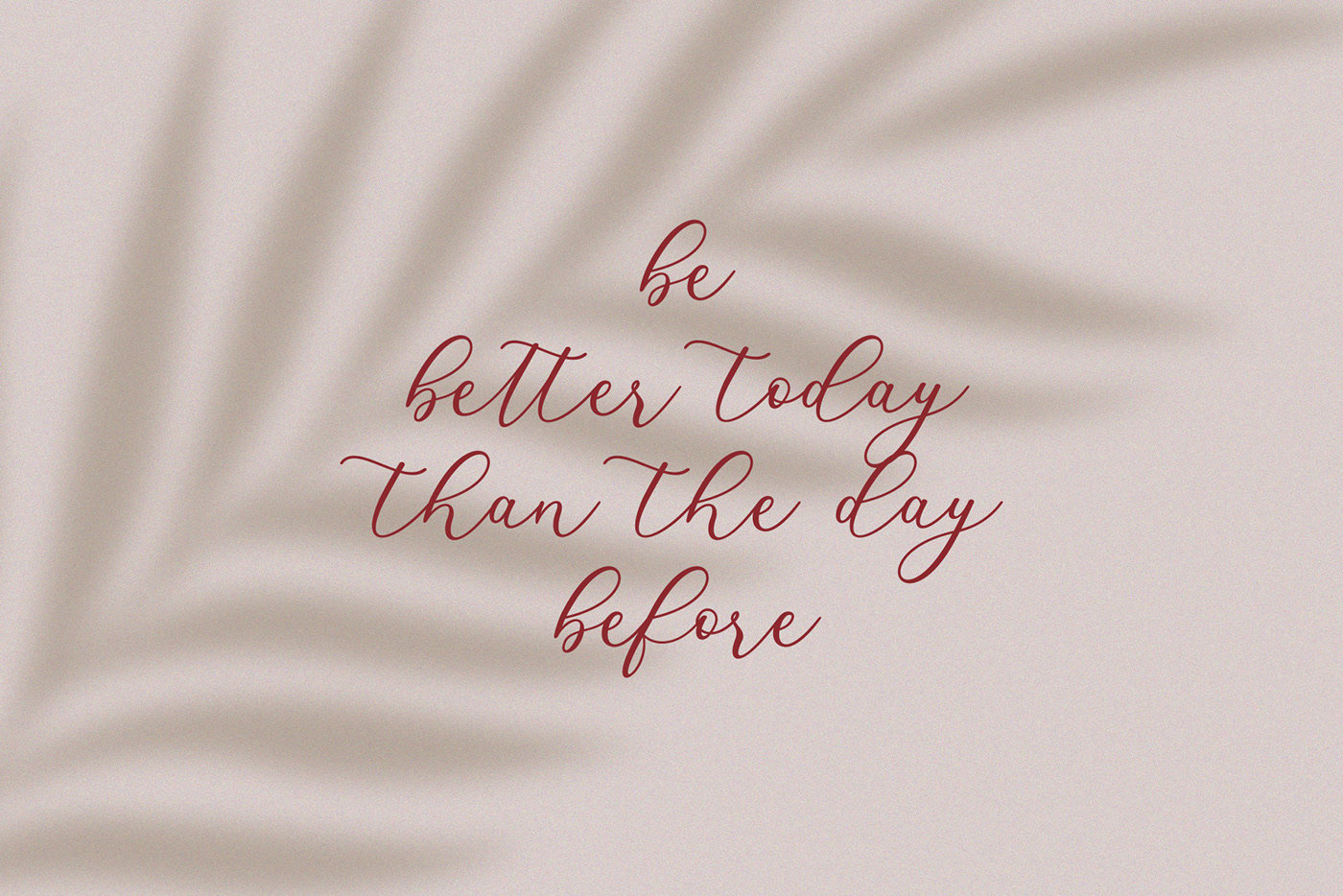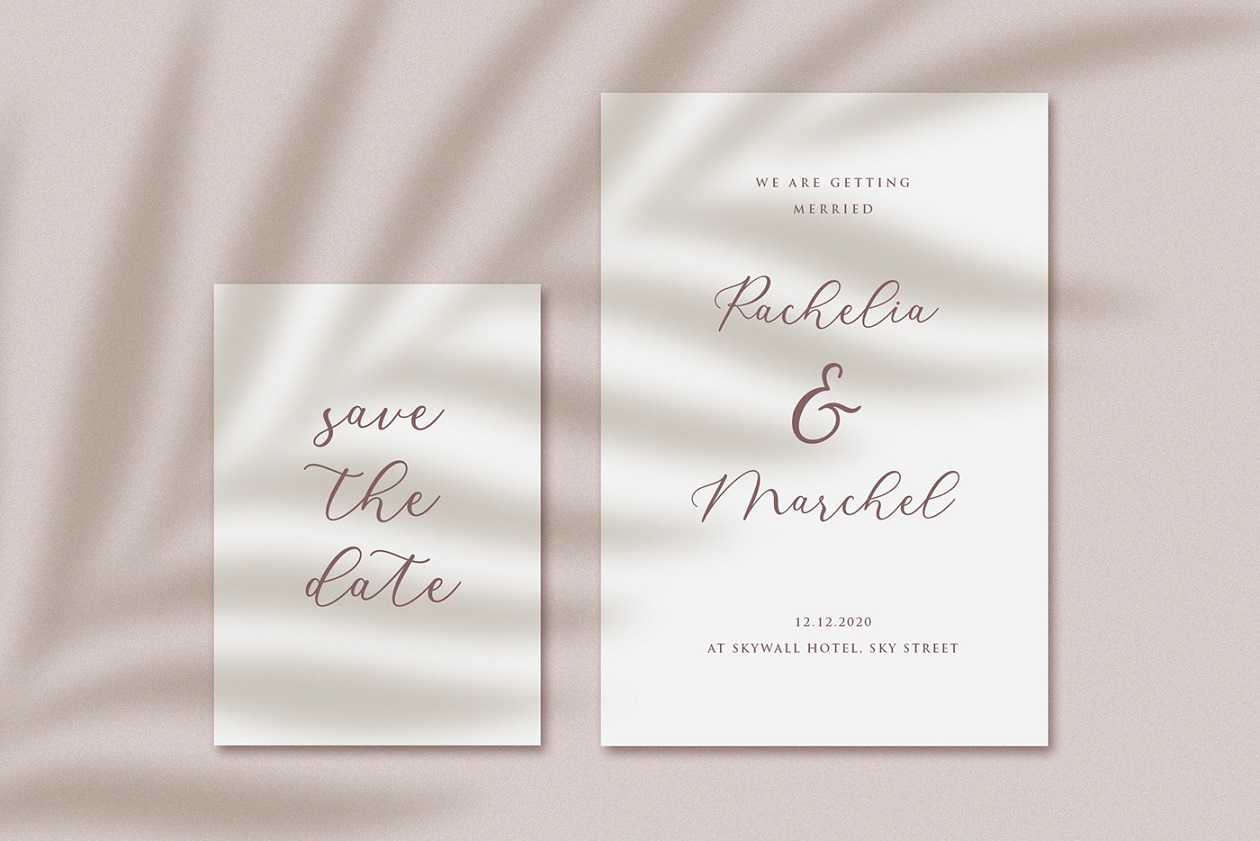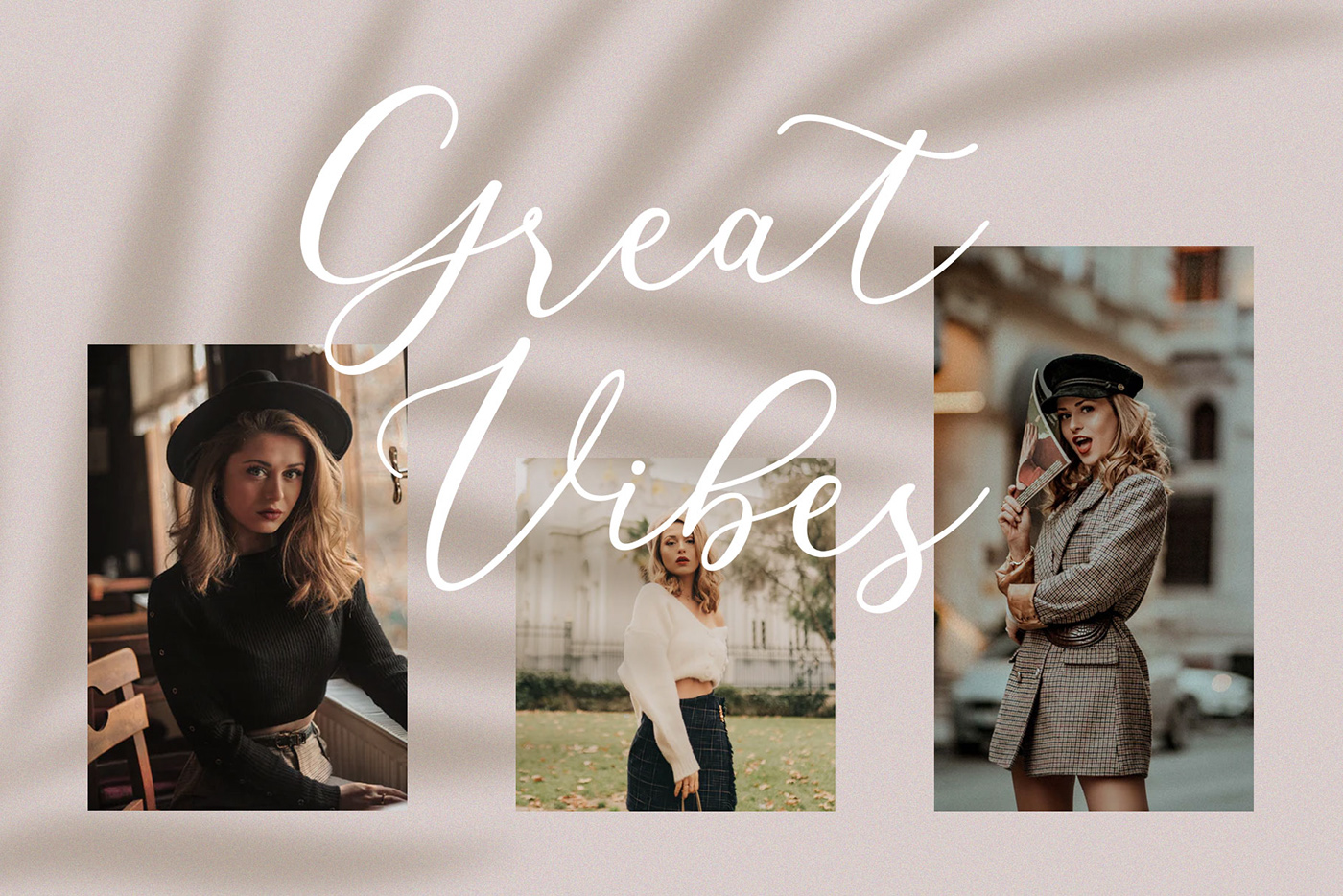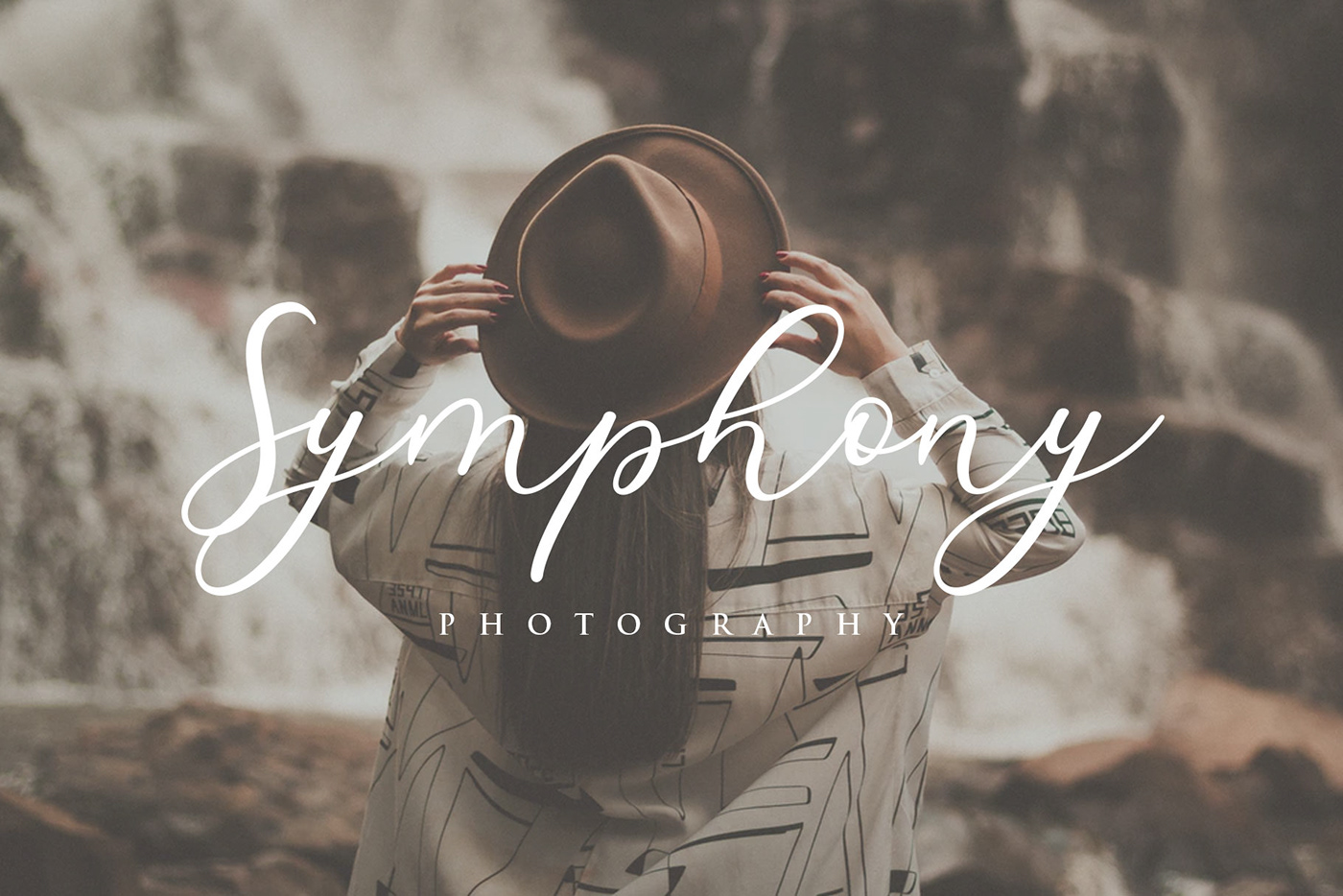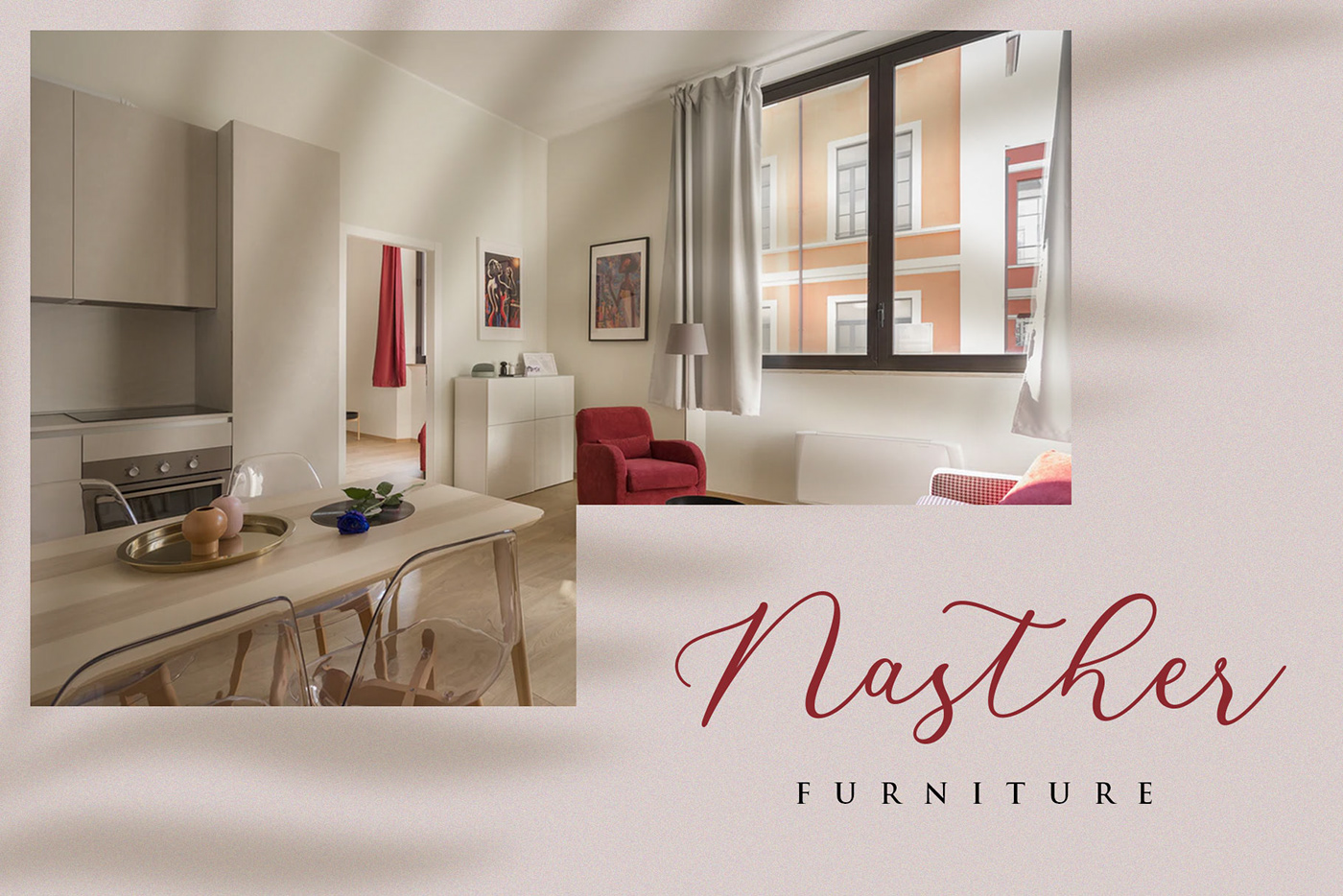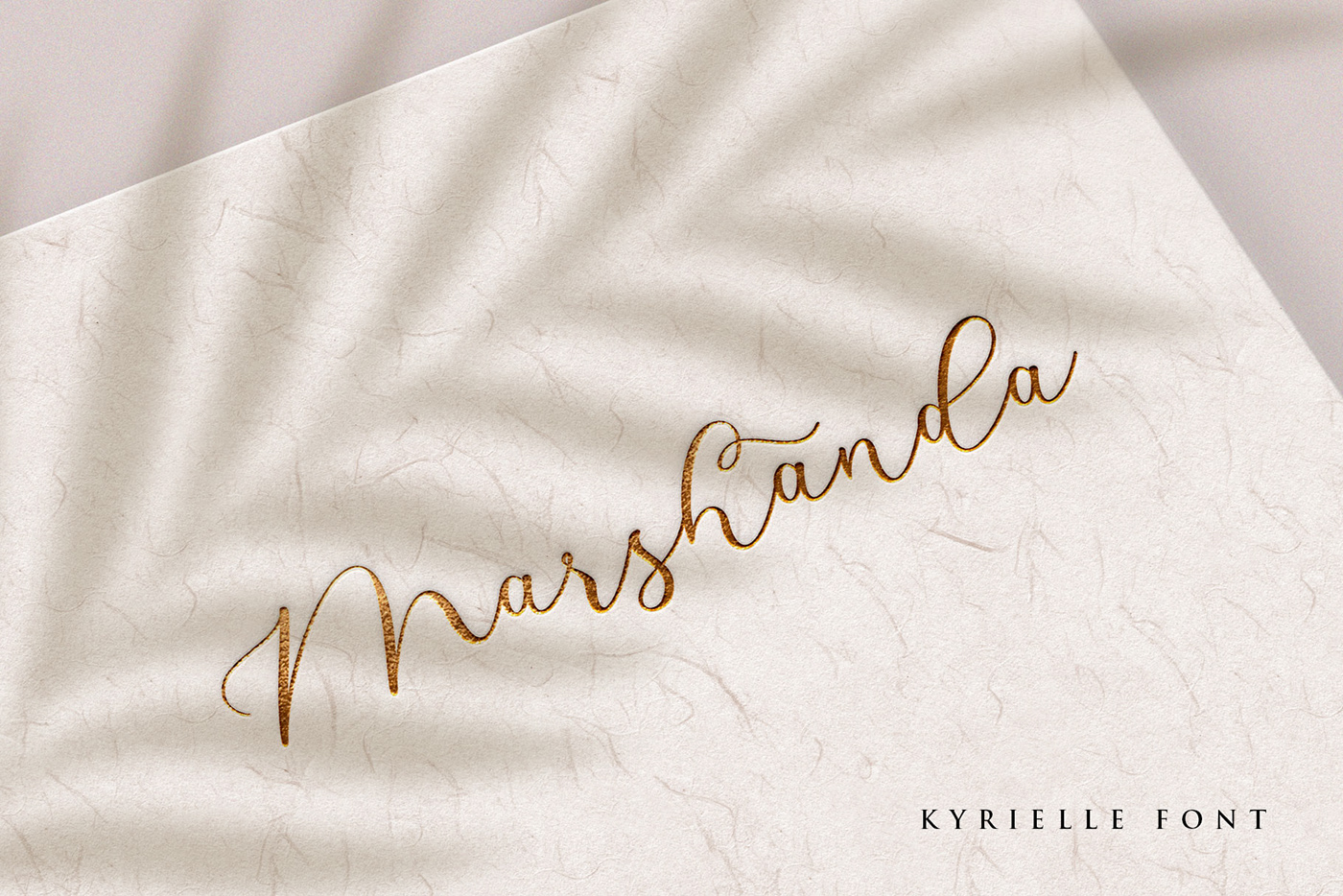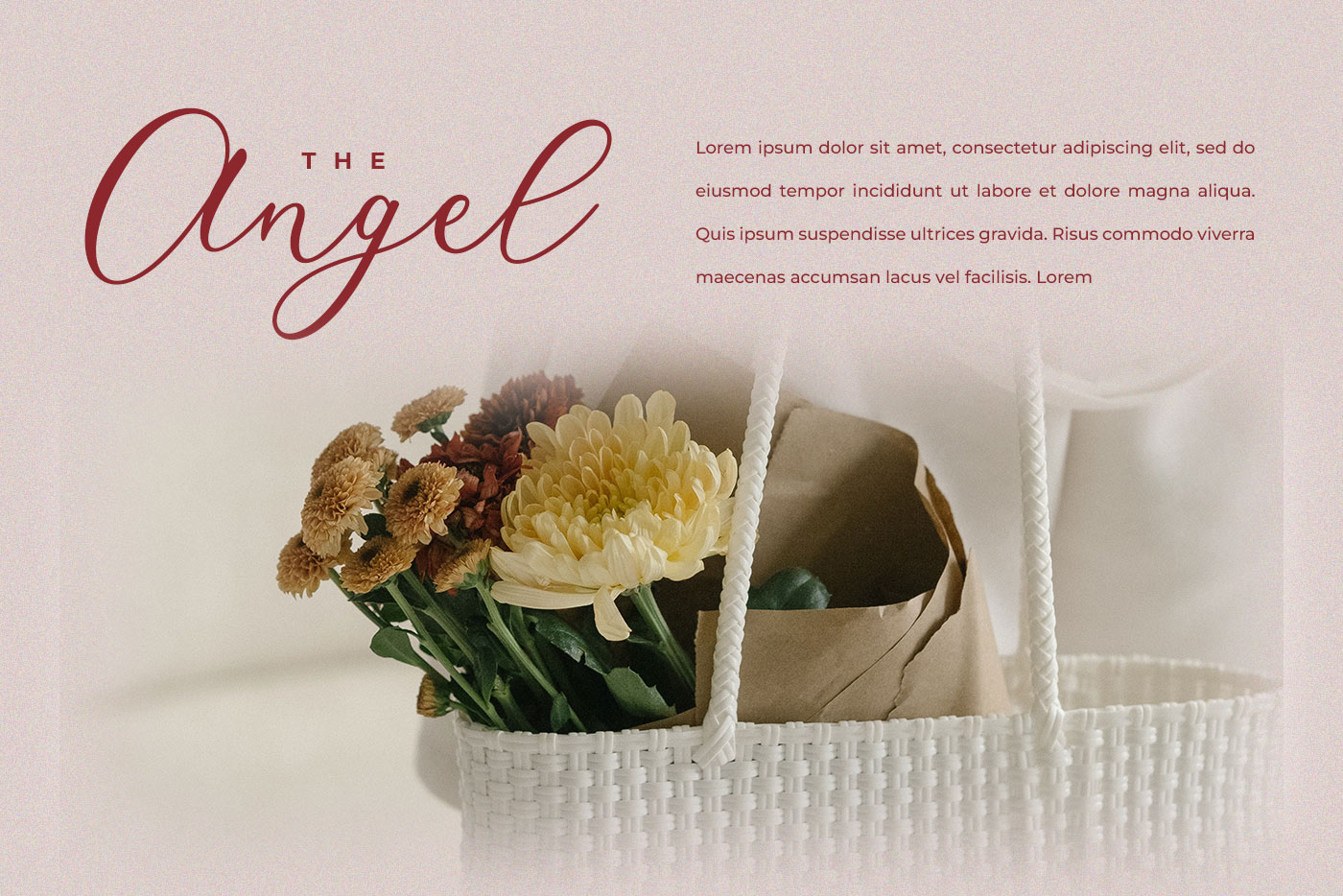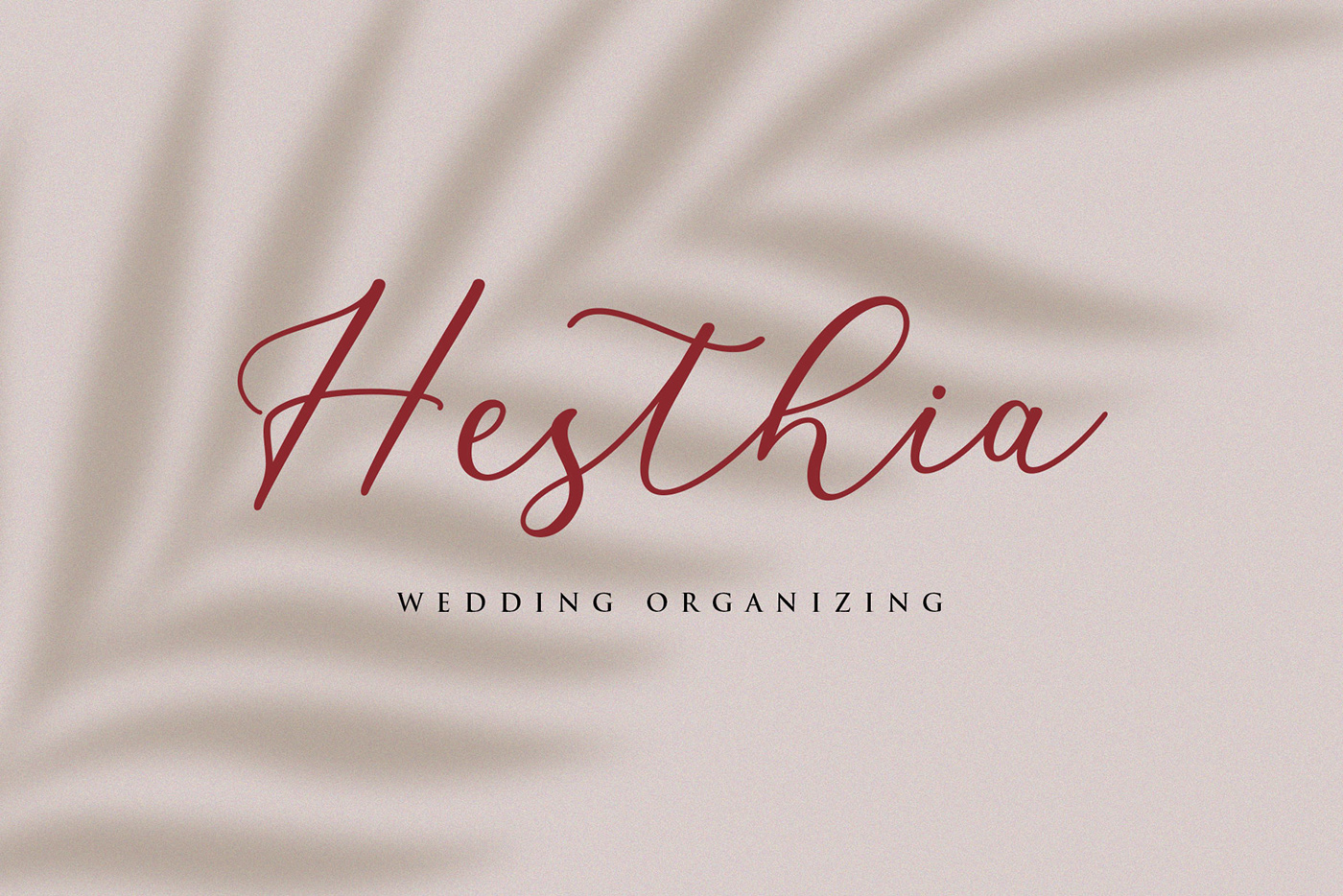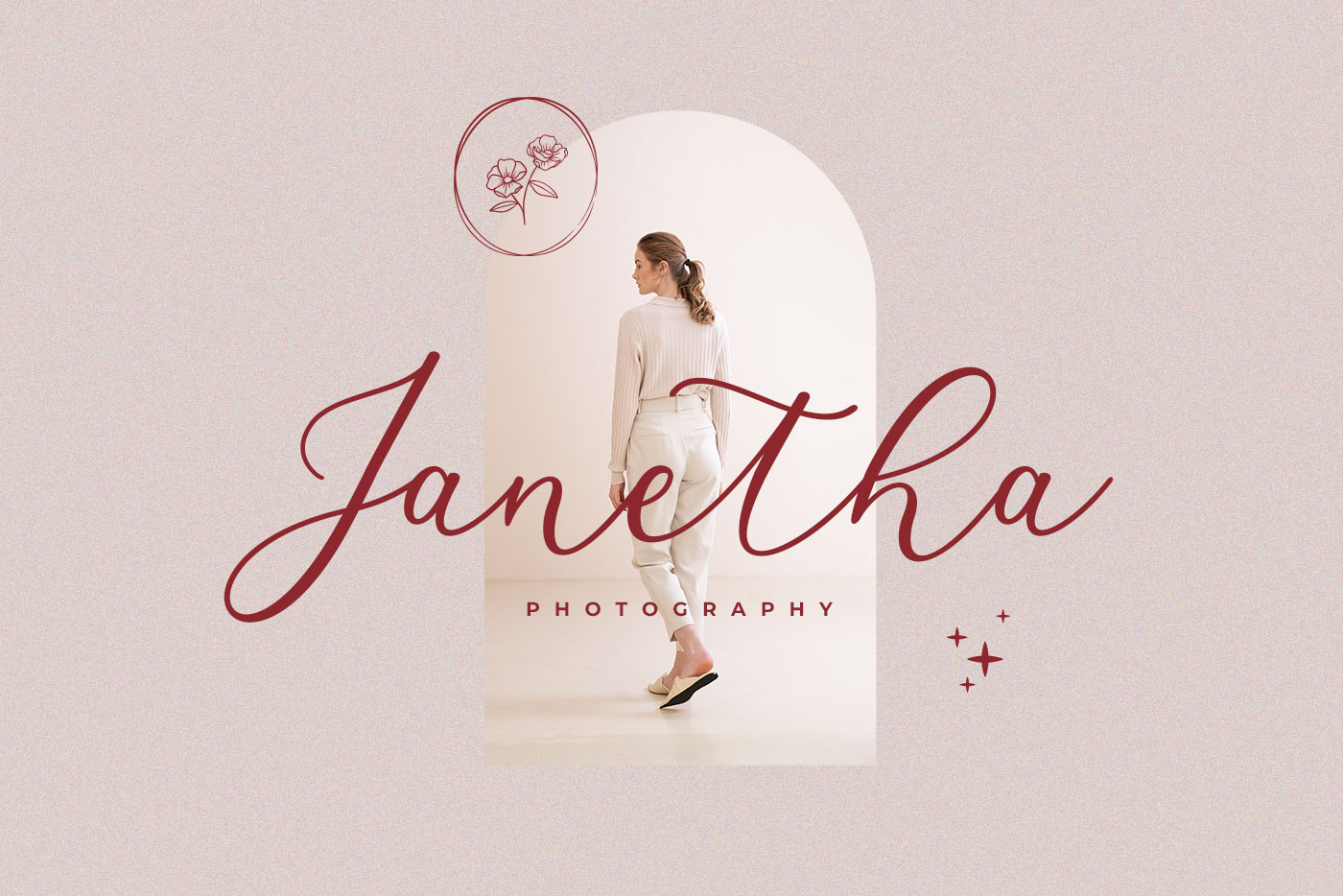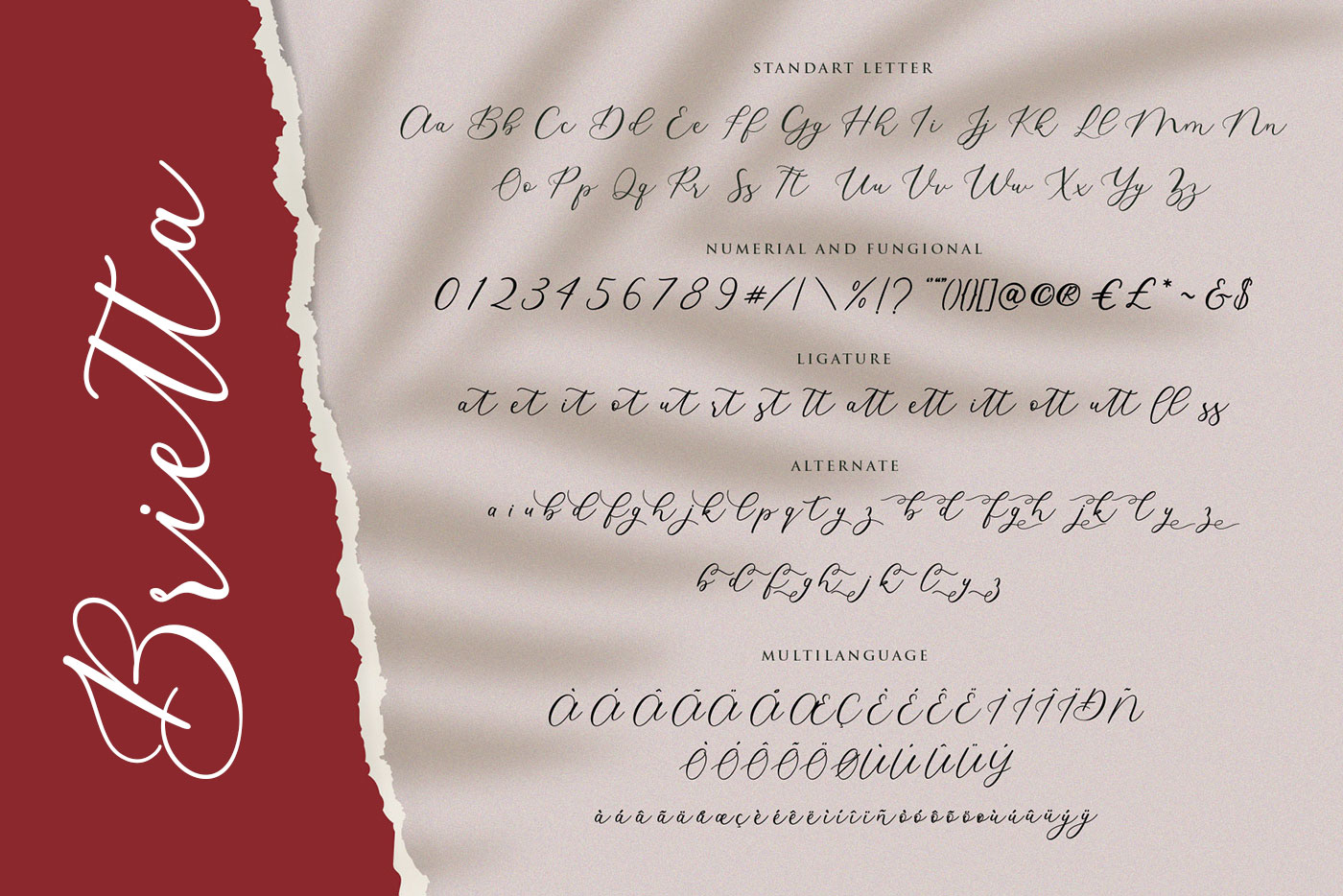
Brietta Calligraphy font
Brietta is simple and elegant fontĀ  which can be interpreted professional. I keep this font looks modern, feminine, girly, catchy, elegant and easy to use also already opentype feauture.
Brietta is the great choice for watermark on wedding organizer, signature or signature logo design, quotes, album cover, business card and many other design project. Brietta is here to make your work or your business to high level!!!
• Basic Latin A-Z and a-z